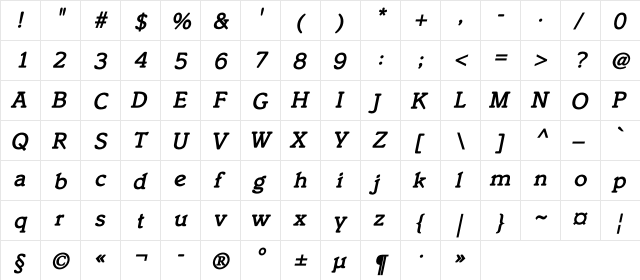
ItaliaC Bold Italic
Design Context for ItaliaC Typeface
ItaliaC is a composed and adaptable typeface that performs quietly and consistently across a wide range of design contexts. Its italic angle brings a sense of urgency and motion to the letterforms. Its bold stroke weight gives it real presence on the page.
Pro Tip: Use ItaliaC for emphasis, pull quotes, and subheadings where its slanted energy can add rhythm to the layout.